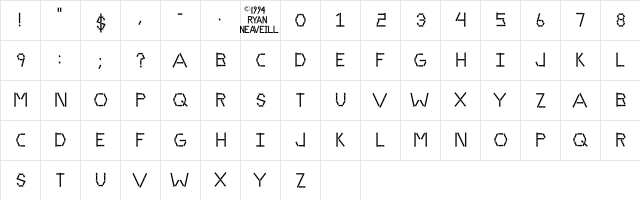
Bamboo Regular
Design Context for Bamboo Typeface
Bamboo is a composed and adaptable typeface that performs quietly and consistently across a wide range of design contexts.